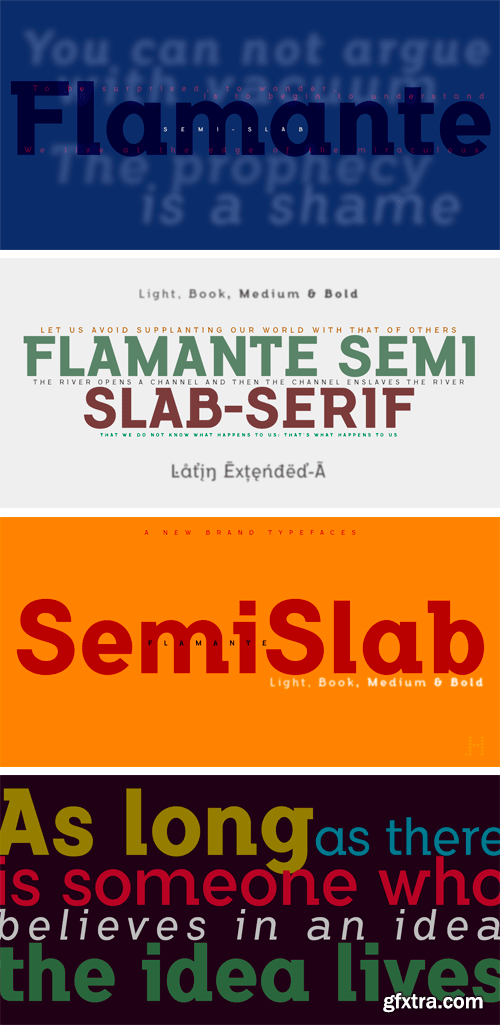
Flamante SemiSlab Full Family
Flamante SemiSlab is a group of eight square serif fonts with thick and finish SemiSerif are presented in four weights: Light, Book, Medium and Bold italics and their corresponding versions.